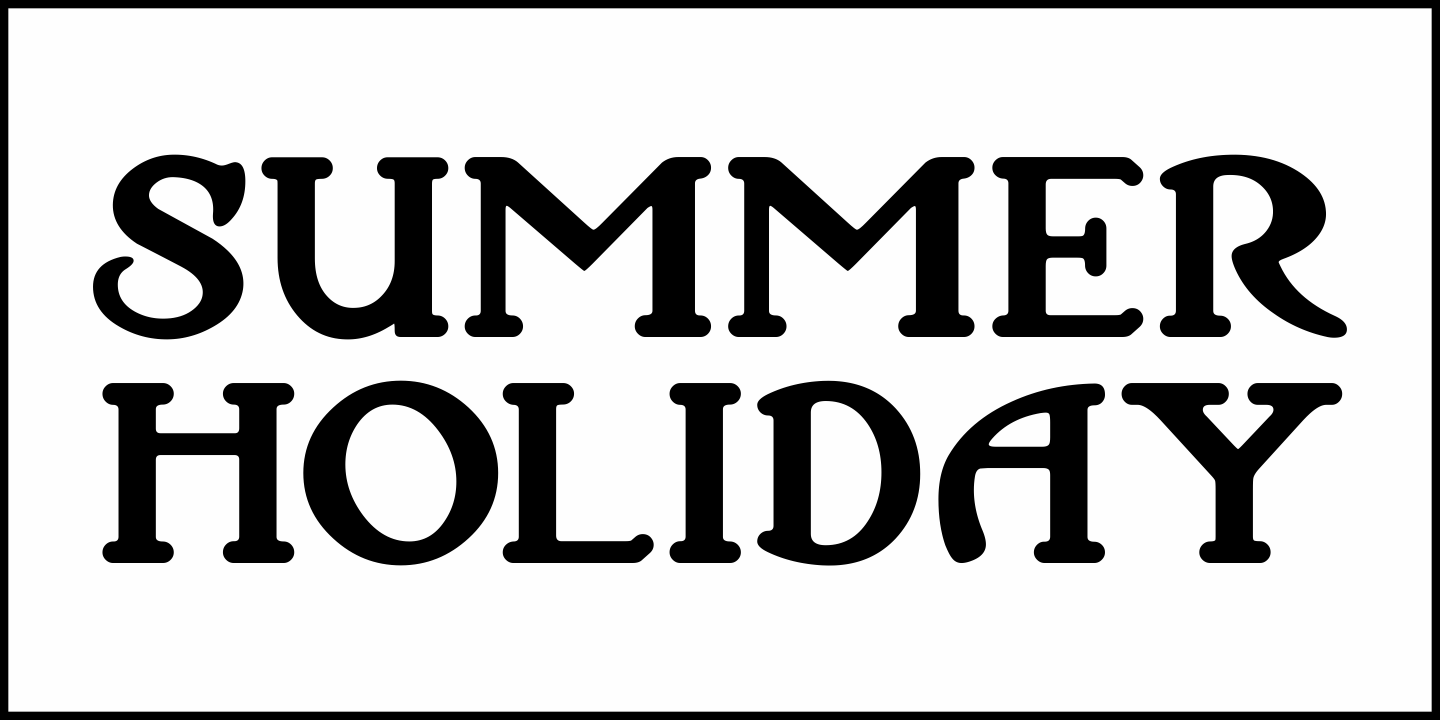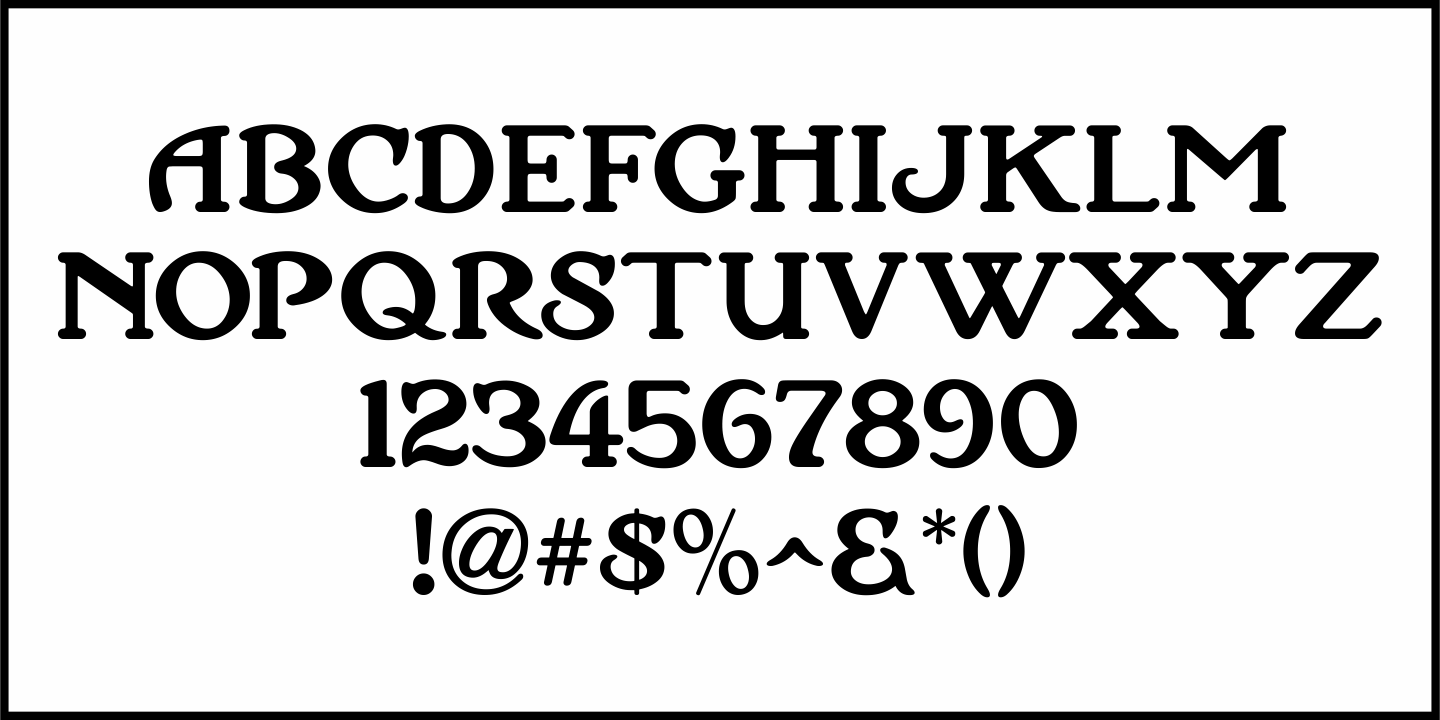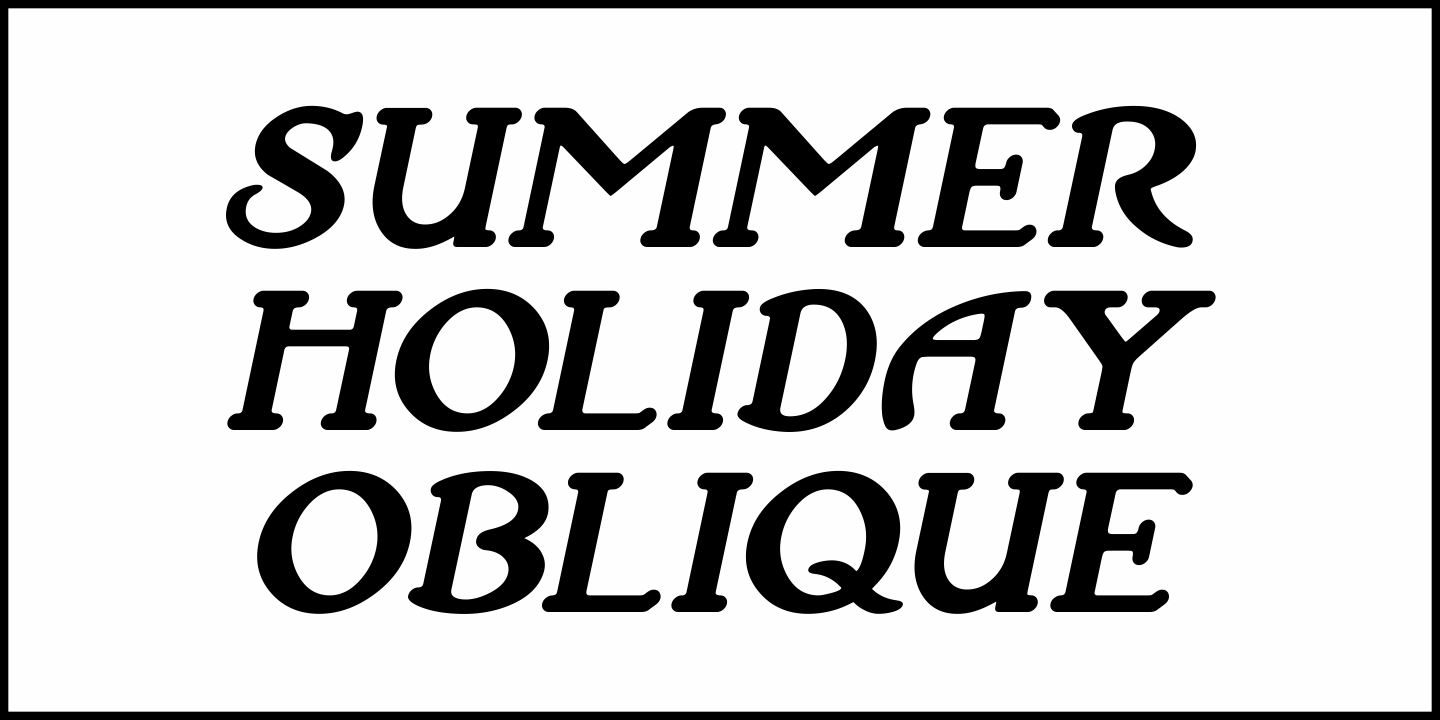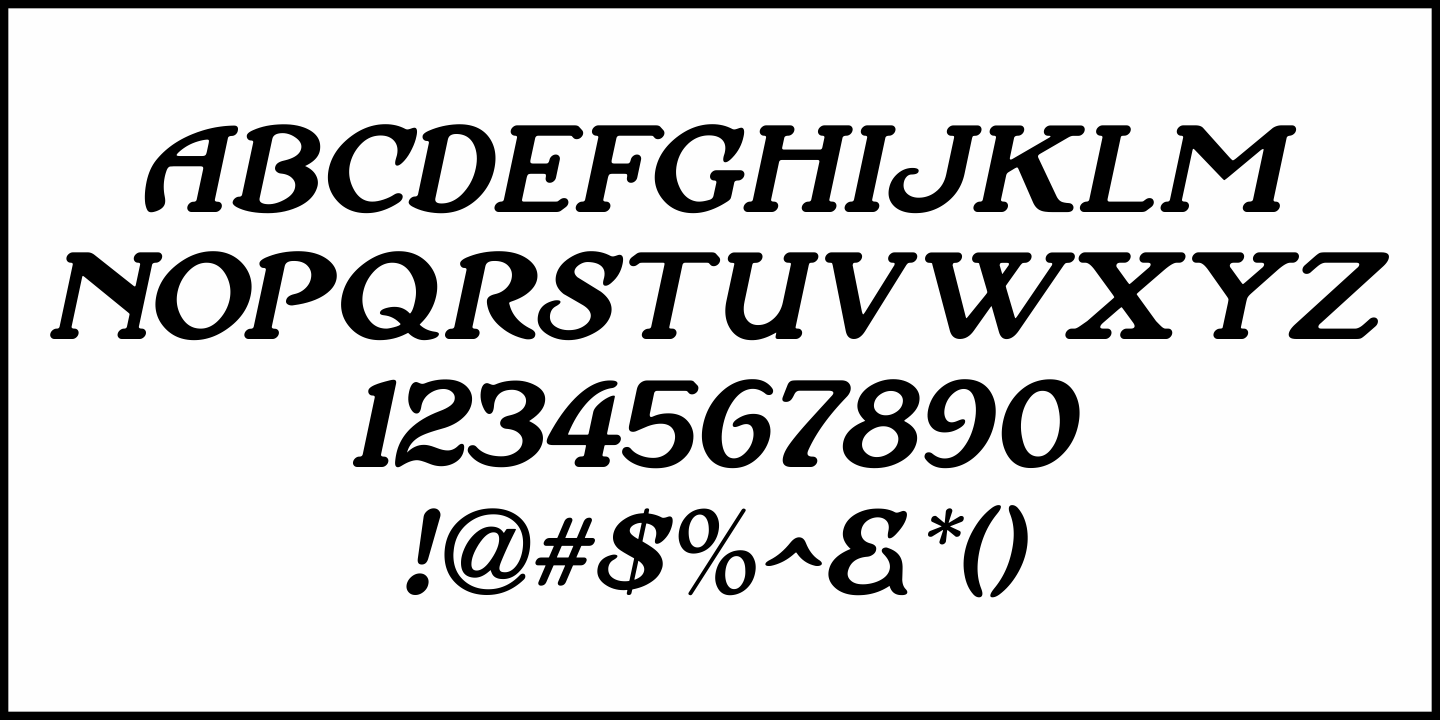
Summer Holiday
Hand lettered production credits for the1930 film “Holiday” inspired the digital type revival Summer Holiday JNL; available in both regular and oblique versions.
An Art Nouveau influence is reflected in this pleasant, casual serif typeface.